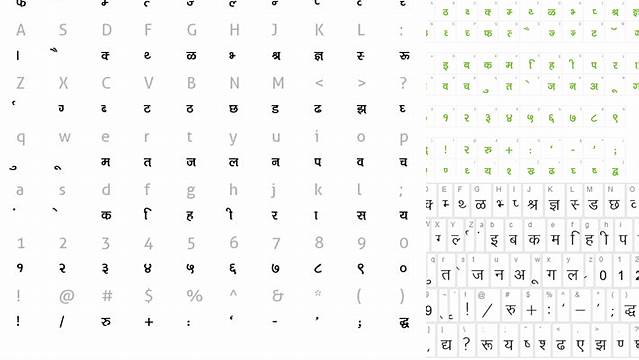
Kruti Dev 710 Font: Free Marathi Download & Guide
Hey guys, are you looking to spice up your Marathi text with a cool, classic font? Well, you're in luck! Kruti Dev 710 is a super popular choice, and the best part? You can snag it for free! This article is your ultimate guide to everything Kruti Dev 710, from downloading it to using it like a pro. We'll dive into why this font is a go-to for Marathi typing, where to get it safely, and even some helpful tips and tricks to make your text stand out. So, buckle up and let's get started on this font-tastic journey!
What is Kruti Dev 710 and Why Do You Need It?
Alright, let's get down to the basics. Kruti Dev 710 is a specific font that's designed to support the Marathi language. It's part of the larger Kruti Dev font family, which is widely used in India for various languages. Think of it as the superhero of Marathi fonts – it's reliable, easy to read, and looks great! The reason why it is so popular is because it is a legacy font. When computers were first introduced to India, there weren't many font options. Kruti Dev 710 became the standard font for typing in Marathi, particularly in government offices, newspapers, and other official documents. This popularity has persisted because of its ease of use and widespread adoption.
So, why would you need it? Well, if you're looking to type in Marathi on your computer, whether it's for personal projects, official documents, or creative designs, Kruti Dev 710 is an excellent option. It's particularly useful if you're working on projects where you need to maintain compatibility with older systems or when exchanging documents with others who might not have access to more modern fonts. This font's design ensures that your Marathi text appears correctly, with all the unique characters and glyphs rendered as intended. It's simple, elegant, and gets the job done without any fuss. If you're involved in any form of Marathi communication, Kruti Dev 710 can be a lifesaver. It ensures that everyone can see your text properly, regardless of the software or system they're using. Moreover, it is easy to install, easy to use, and it has the perfect balance of readability and aesthetic appeal. It's like the old faithful friend that you can always count on, making it a solid choice for any Marathi typing need. The font's popularity also means that you'll find plenty of online resources and support if you need it, making the whole process even smoother.
Understanding the Key Features and Benefits
Let's break down why Kruti Dev 710 stands out in the crowded world of fonts. First and foremost, it's specifically designed for the Marathi script. This means every single character, vowel, consonant, and special symbol is crafted to look exactly as it should, providing accurate and visually pleasing text representation. Another key benefit is its widespread compatibility. Because it has been around for such a long time, the font is compatible with most Windows operating systems, and it's easy to install. This means you can quickly and easily install it on your computer, start typing, and share documents with others without worrying about font issues. The readability of the font is another major plus. Kruti Dev 710 is designed to be clear and easy to read, which is essential for any document. The font's clean design ensures that your audience can effortlessly read and understand your message.
Furthermore, Kruti Dev 710 has a strong legacy and community support. As a long-standing font, it has a well-established user base. This means that you'll find plenty of online resources, tutorials, and community forums to help you if you encounter any problems or have questions. The availability of these resources makes it easy to troubleshoot issues and quickly become proficient in using the font. You can benefit from the collective experience and knowledge of other users who are familiar with the font. This is a great advantage for beginners or those who need quick solutions to any issues that might arise. Finally, the font is free to download and use. This is a huge plus, especially if you're on a budget or don't want to invest in expensive font software. It's a cost-effective solution that allows you to create beautiful Marathi documents without any financial barriers.